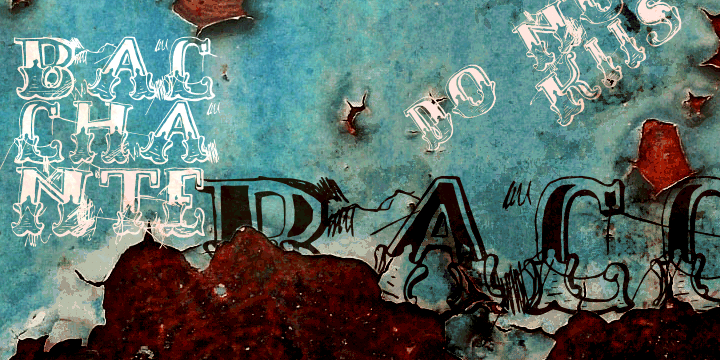
Bacchante
Design Credits
Designed when: 2009
Design owned by: Vladislav Ivanov
Bacchante
Bacchante is a hand-written font with retro touch, perfect for collages or simple text.